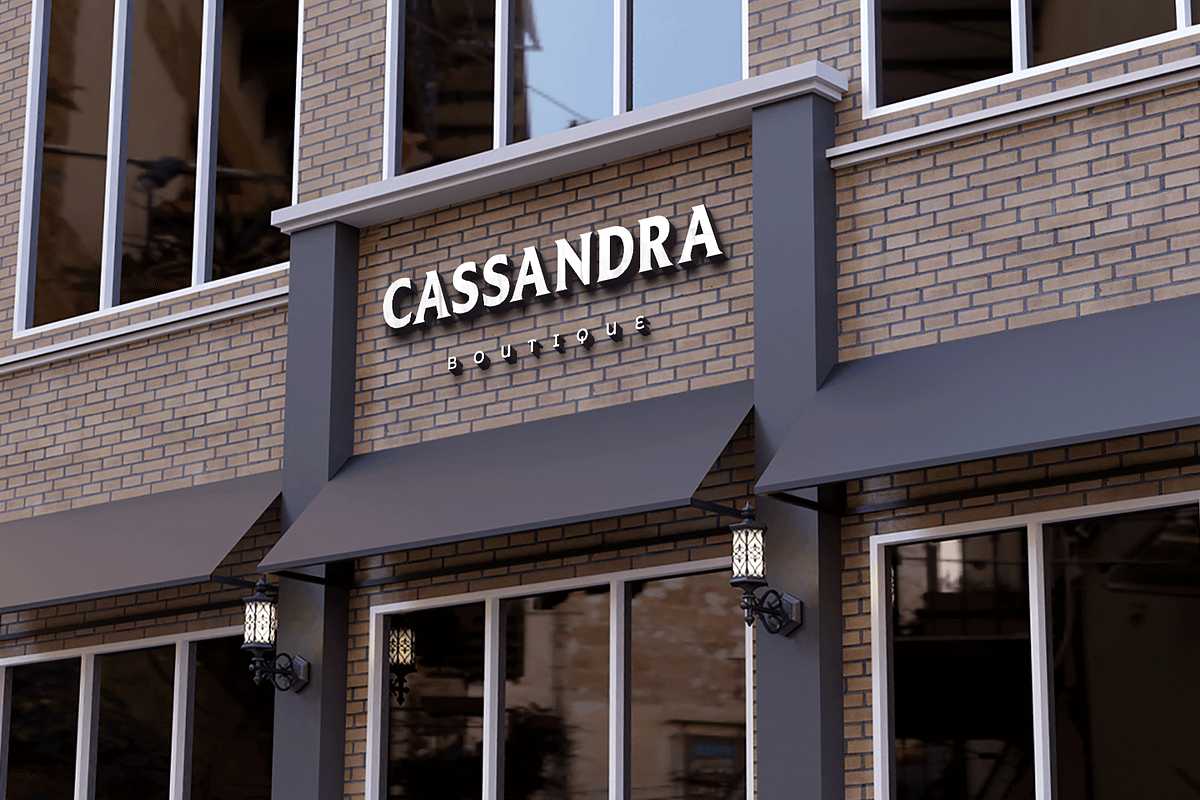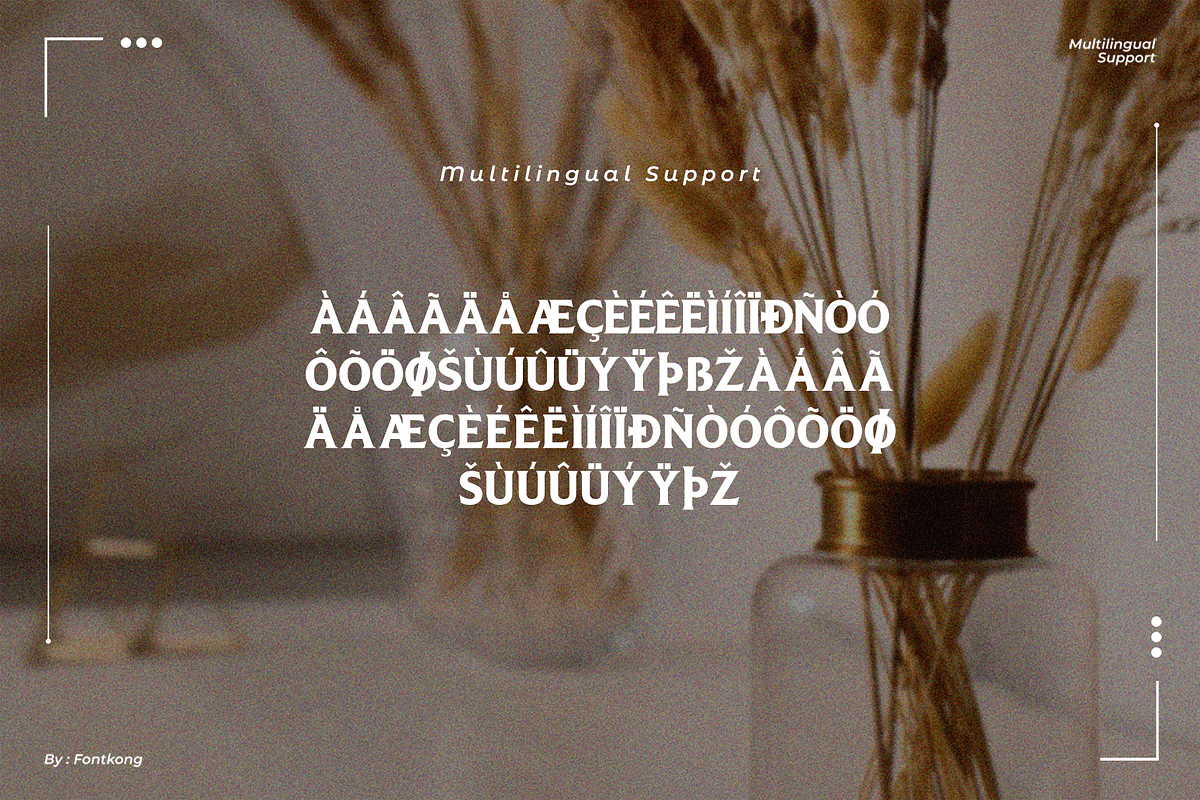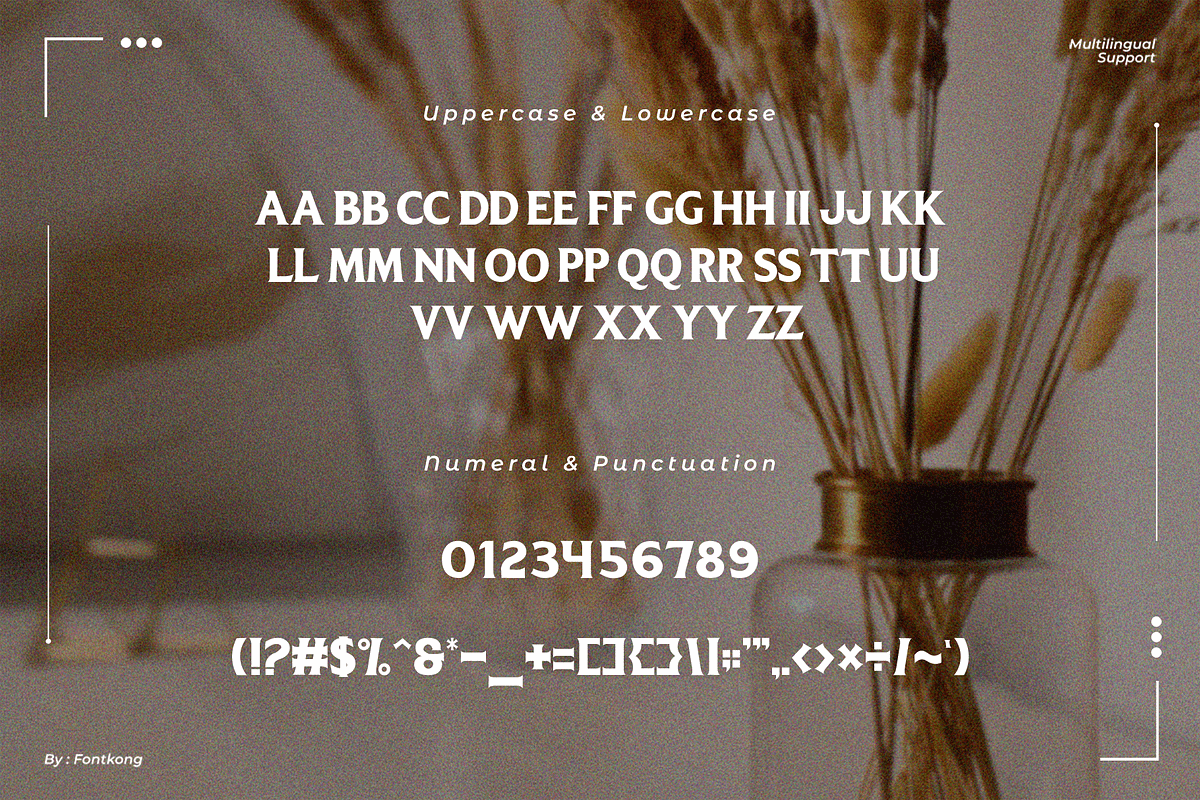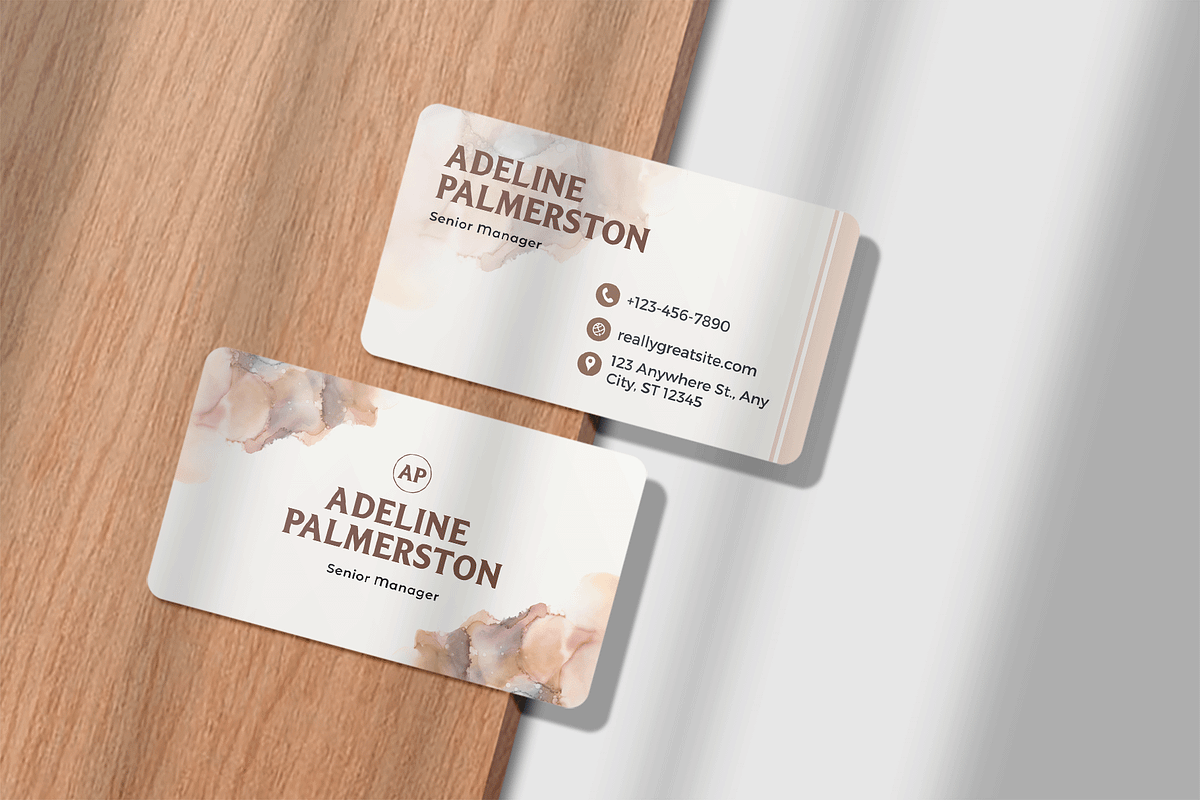
Glowmore - A Classy Serif Font
Bring sophistication and charm to your designs with Glowmore, a classy serif font that combines timeless style with modern flair. Ideal for branding, invitations, editorial layouts, and luxury packaging, this typeface exudes elegance and professionalism.
With its refined letterforms and multilingual support, Glowmore is perfect for creating high-end designs that captivate and inspire. Whether for a chic wedding invitation or a polished magazine headline, this font ensures your work shines with grace.